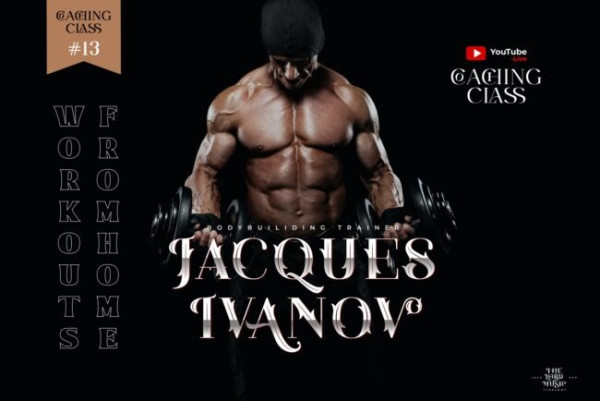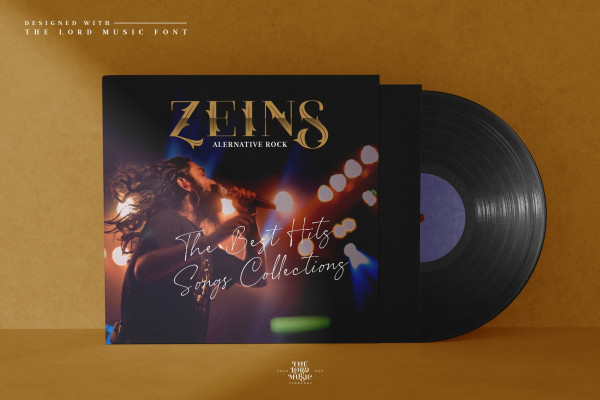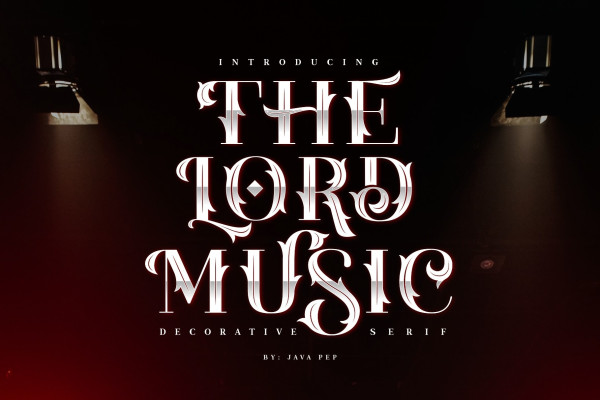
The Lord Music Font
The Lord Music Font is an elegant and incredibly assertive decorative font. Fall in love with its versatile style and use it to create gorgeous formal designs, beautiful stationary art, everlasting posts, and much more!